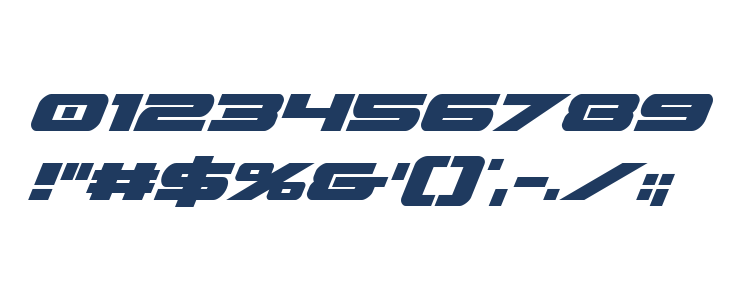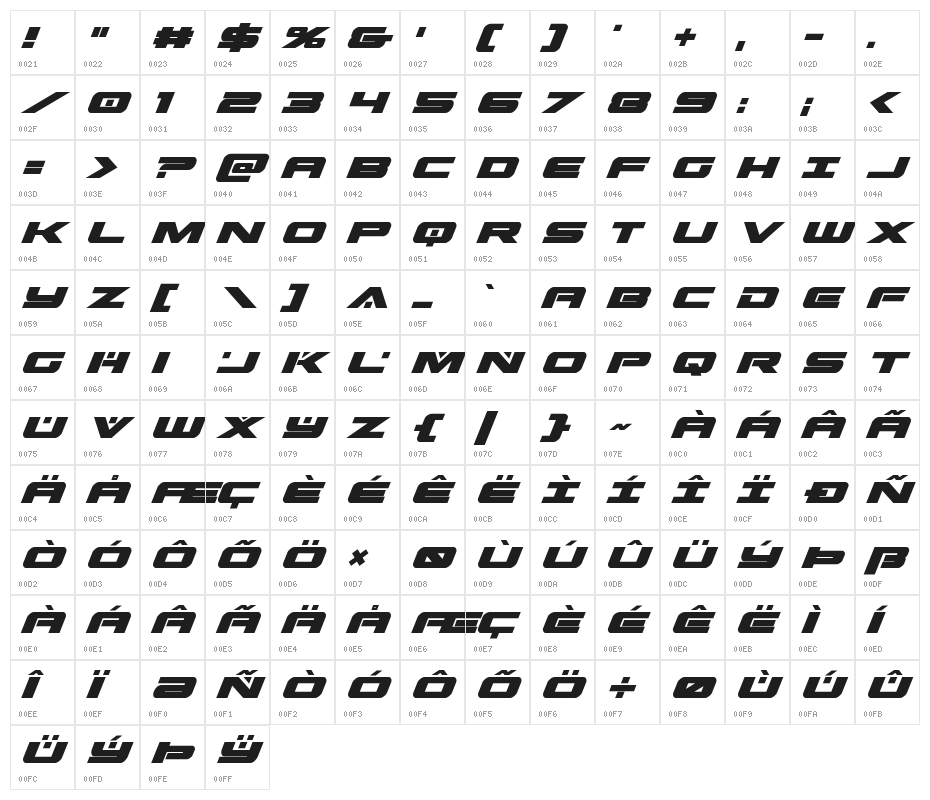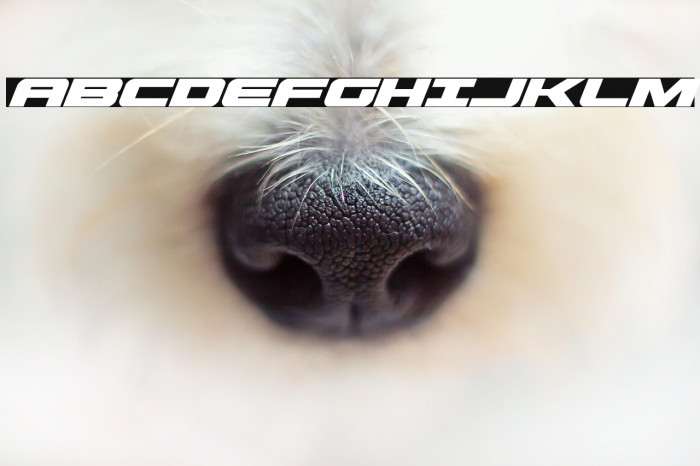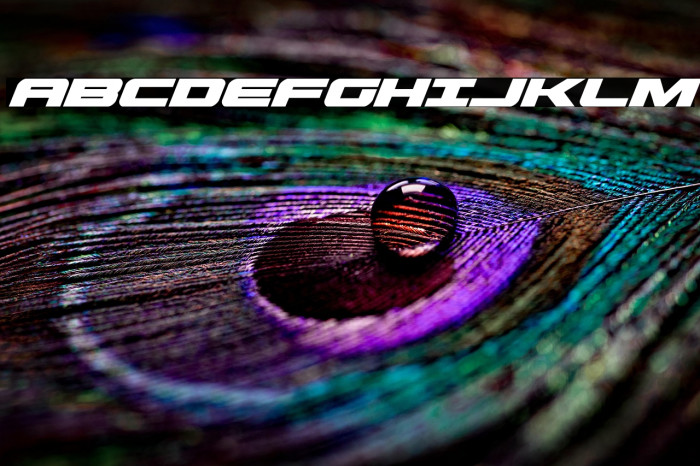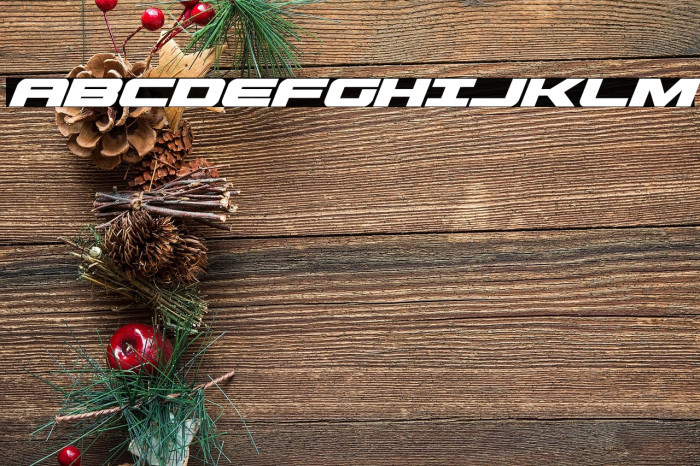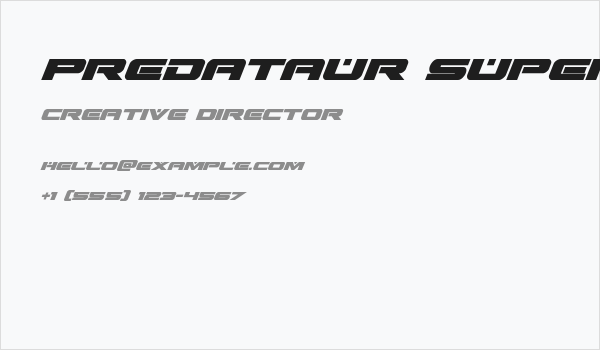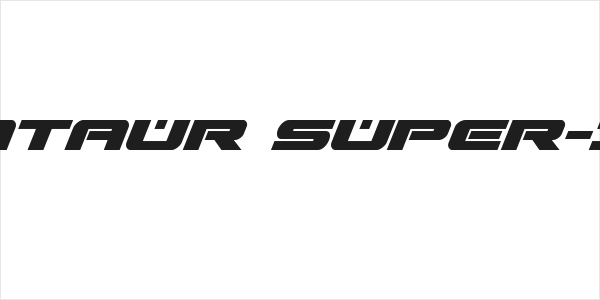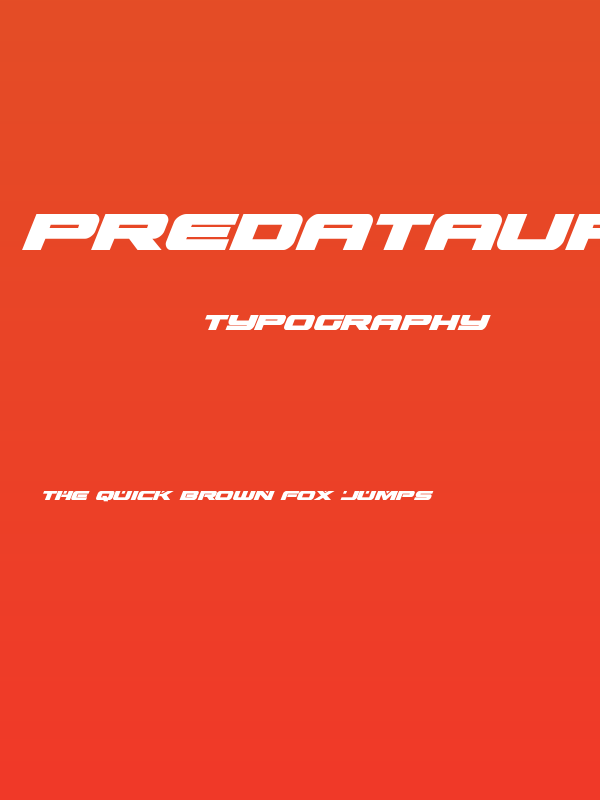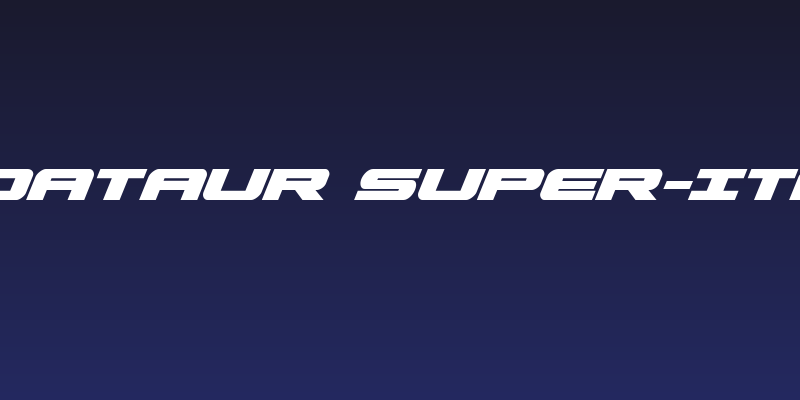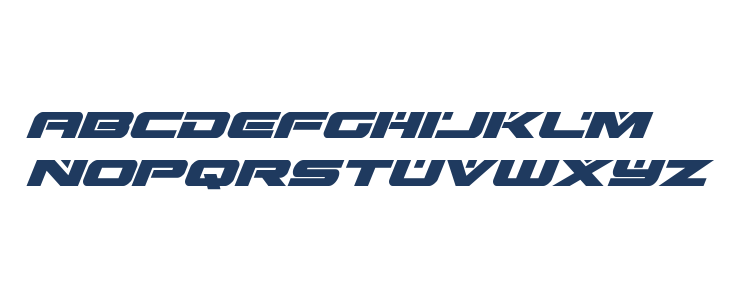
Predataur Super-Italic Font
Predataur Super-Italic Description
This font exhibits a bold and dynamic style with a futuristic and sporty appearance. The characters are italicized, giving a sense of motion and speed. The strokes are thick and consistent, providing a strong visual impact. The design features sharp angles and geometric shapes, enhancing its modern and edgy look. The uppercase and lowercase letters maintain a uniform style, while the numerals and special characters complement the overall aesthetic. This font is ideal for projects that require a bold and energetic feel.
| Proposed Projects | Ideal for sports branding, automotive designs, video game titles, and dynamic posters. |